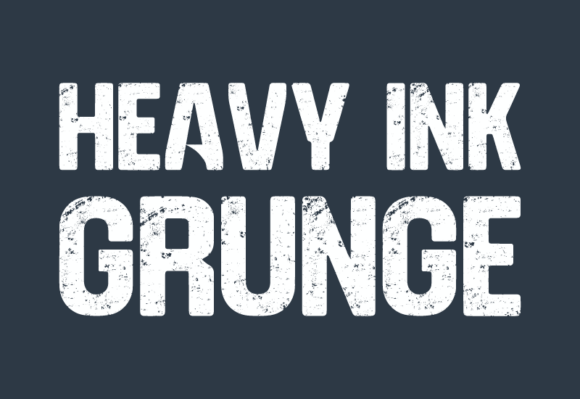
Unleash Your Inner Rebel with Heavy Ink Grunge Font
Remember the rush of excitement you felt when you first stumbled upon that underground music festival or that obscure art gallery? The thrill of discovering something raw, unpolished, and unapologetically unique? That’s the essence of Heavy Ink Grunge Font – a sans-serif font that embodies the spirit of non-conformity and audacity.
Heavy Ink Grunge Font is more than just a typeface; it’s a statement piece that adds texture and grit to your designs. With its distressed texture and bold lines, this font is perfect for projects that crave a raw, edgy feel. Whether you’re a graphic designer, artist, or musician, Heavy Ink Grunge Font is a valuable addition to your creative arsenal, allowing you to convey your message with profound impact.
- Unique Characteristics: Heavy Ink Grunge Font features distressed, hand-drawn textures and ink splatters, giving it a unique, grungy aesthetic.
- Font Style: A bold, sans-serif font with a rugged, edgy feel, perfect for making a statement in designs.
Designer Review: Heavy Ink Grunge Font
Overall, I have mixed feelings about the Heavy Ink Grunge Font. On one hand, it has its strengths that make it a decent addition to any design project. ✨ The font’s distressed look and feel give it a unique, rugged edge that’s perfect for music festivals, rock bands, and other edgy brands.
- ✨ Unique and eye-catching design that grabs attention
- ✨ Versatile enough to be used in various design contexts, from logos to posters
- ✨ Supports a range of languages, making it a great choice for international brands
- ⚠️ Limited font sizes and styles may make it difficult to use in certain design scenarios
- ⚠️ Some characters may not be as well-designed as others, which can lead to inconsistencies
- ⚠️ May not be suitable for brands that require a more polished or refined look
In conclusion, while the Heavy Ink Grunge Font has its strengths, its limitations may make it a less-than-ideal choice for some designers. It’s a good option for those who want a bold, edgy look, but may not be the best fit for more conservative or traditional brands.
The Heavy Ink Grunge Font is ideal for creating distressed, vintage, or grunge-style designs. It’s perfect for use in music, art, or fashion projects, as well as for creating a unique and eye-catching look for business cards, posters, or social media graphics.